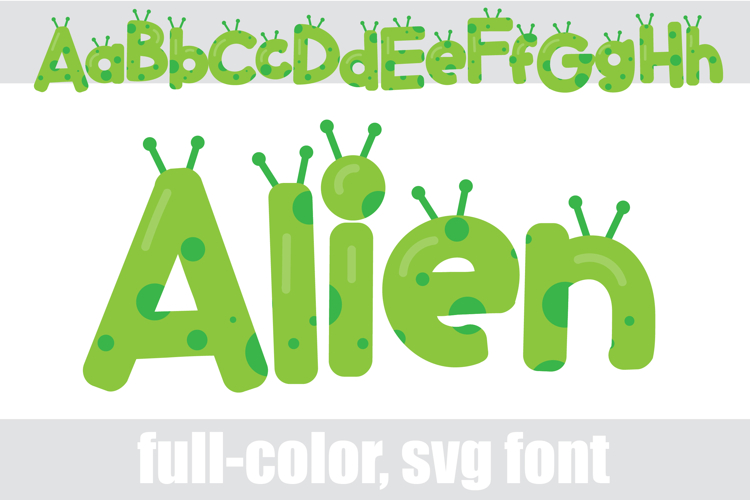
Alien Color Font
This full-color font features letters that look like green aliens. There is an alt case of each letter with a different color combination.